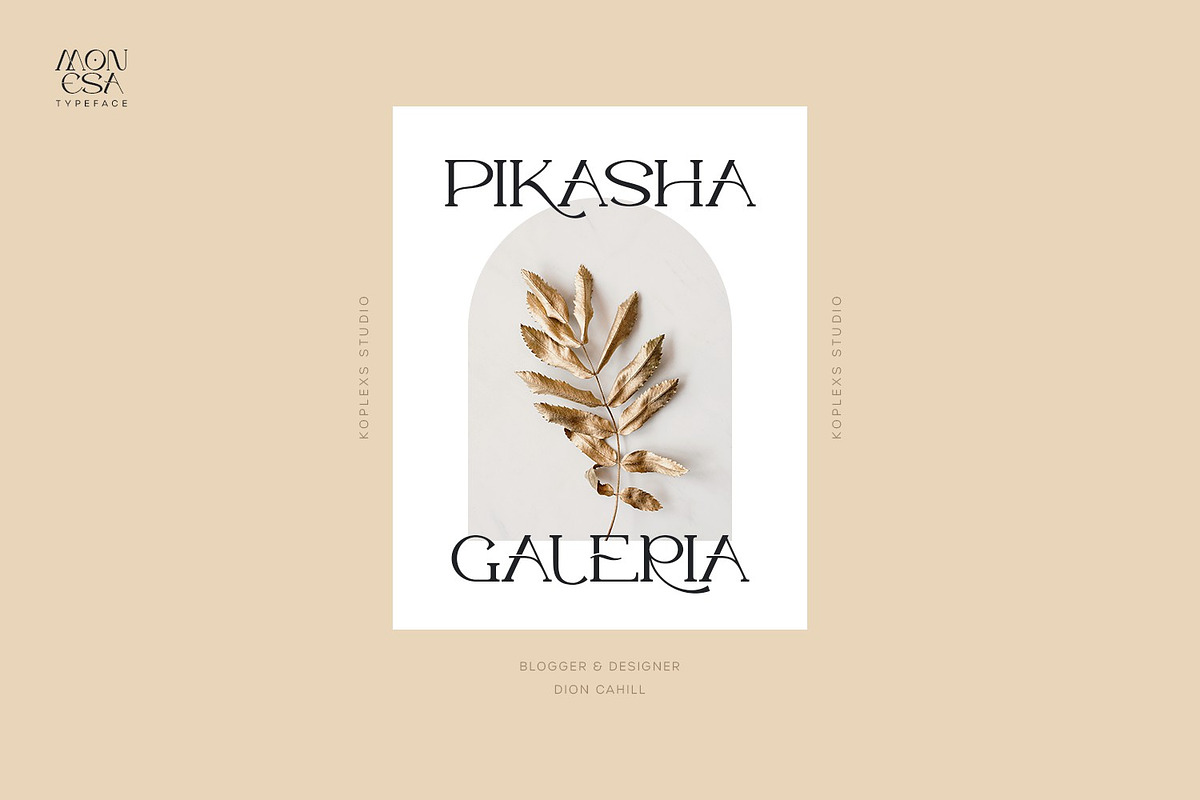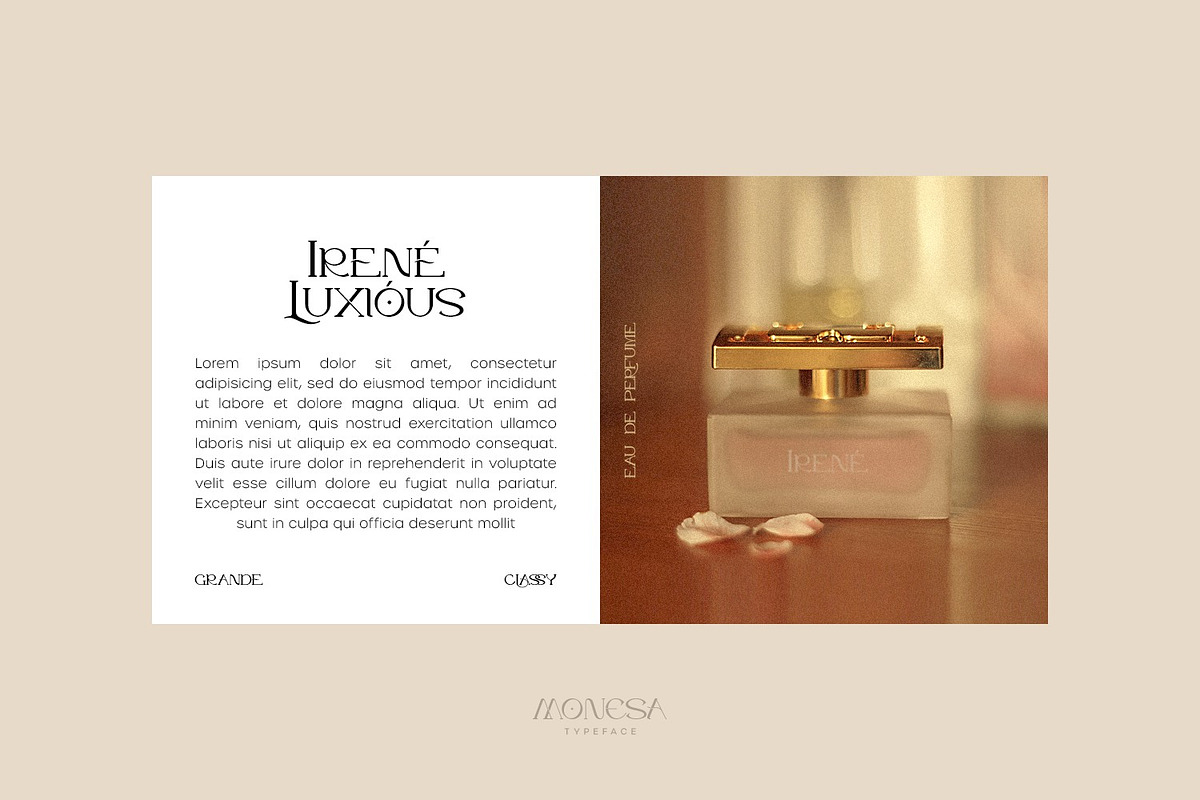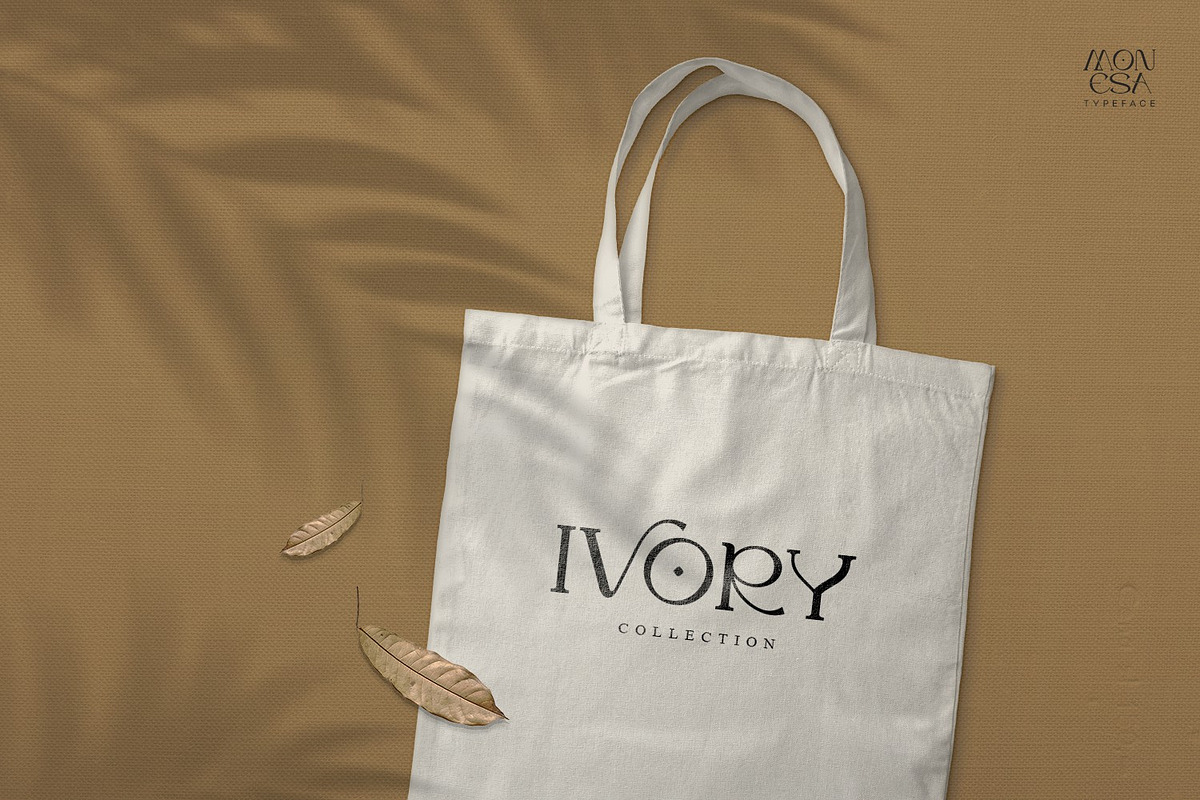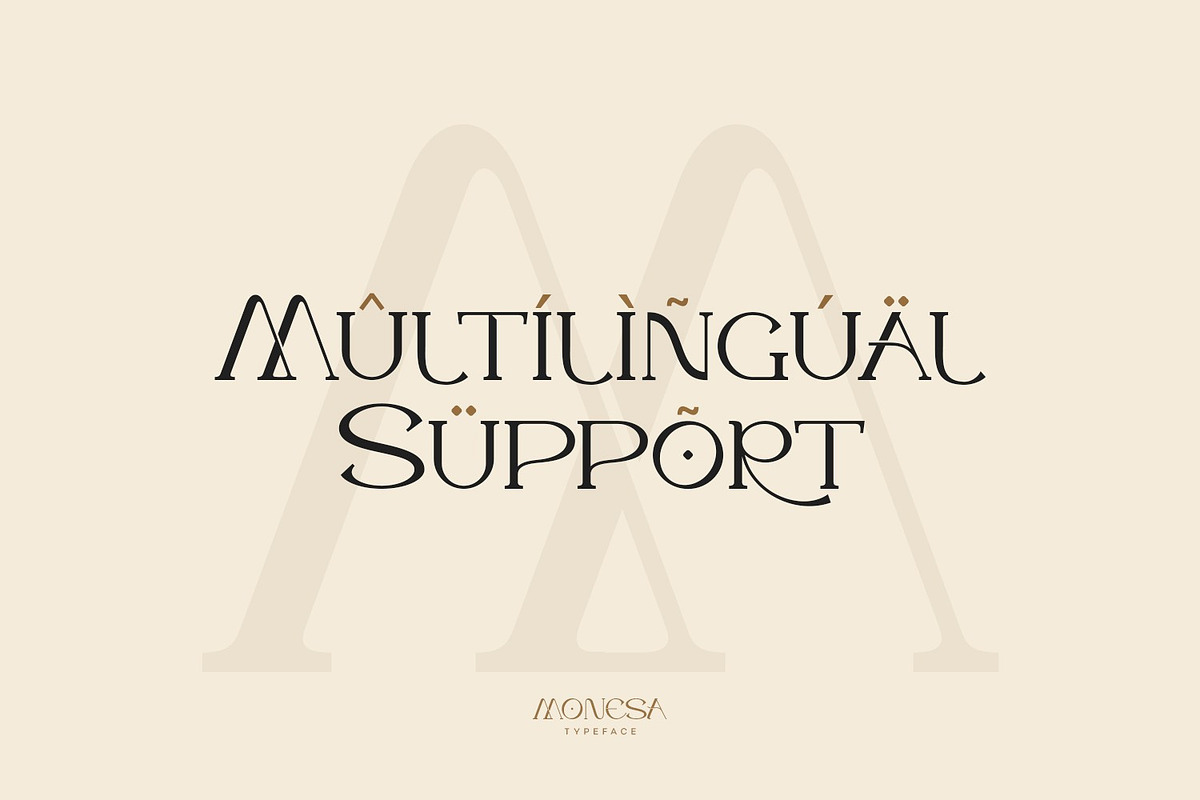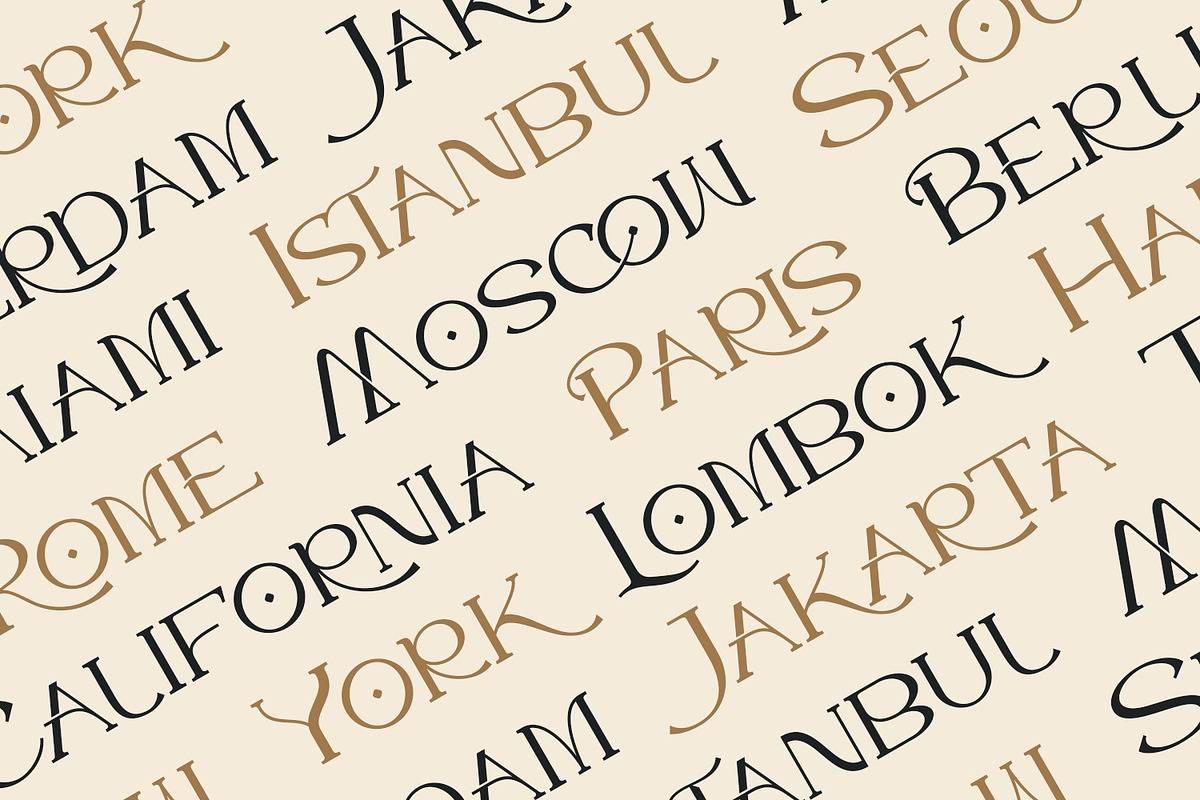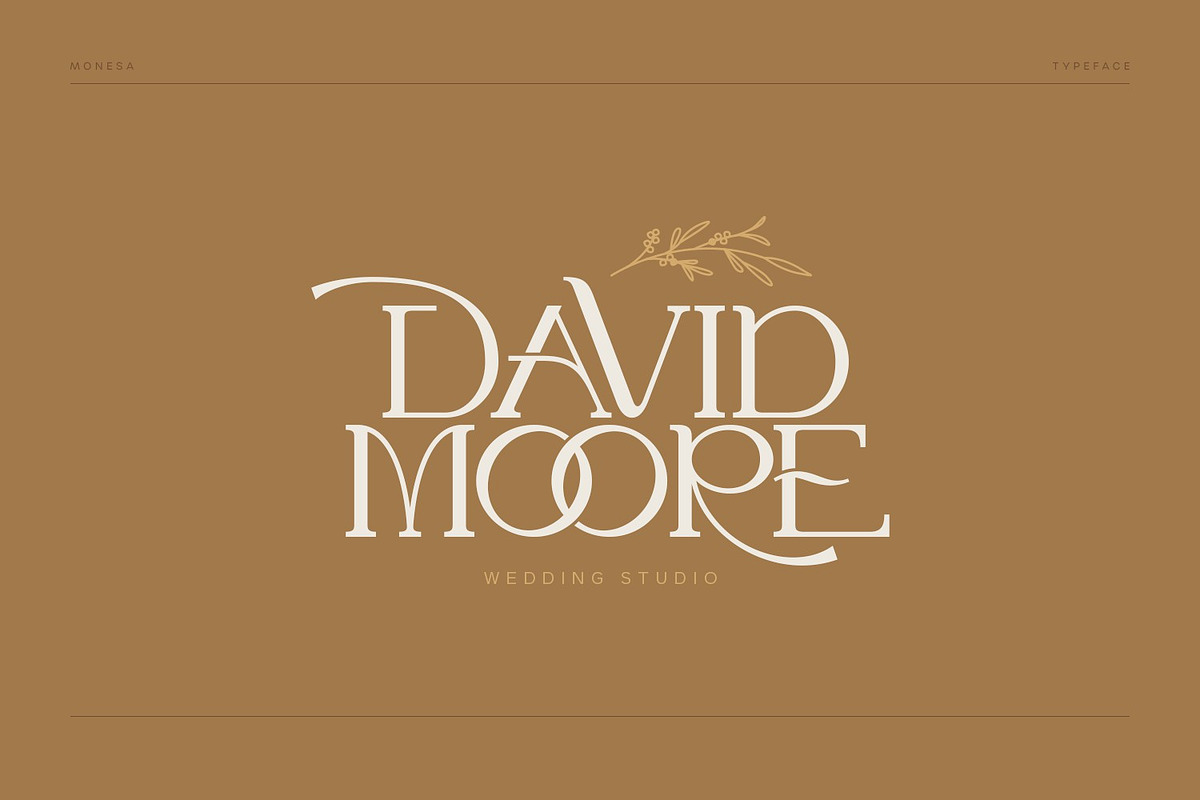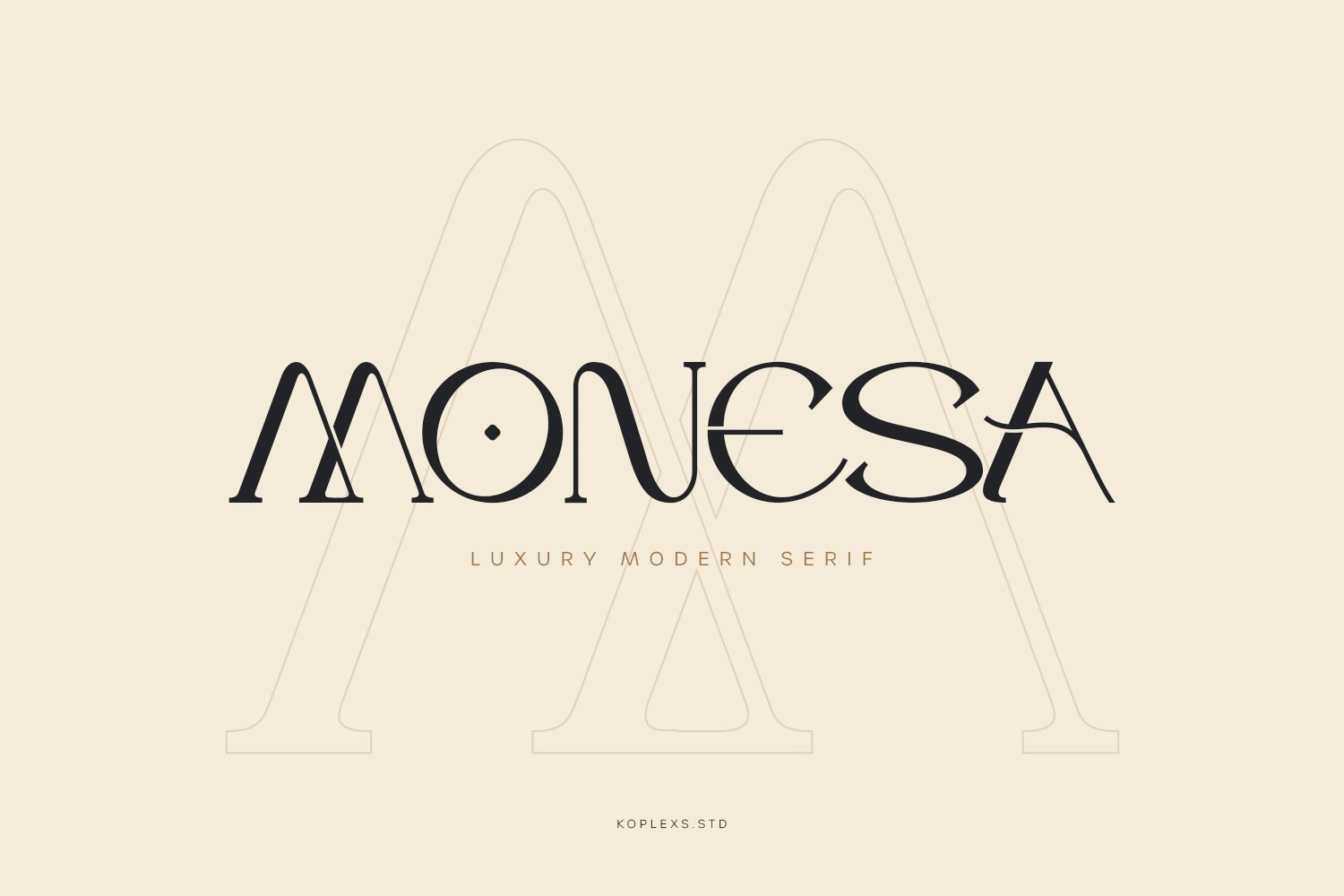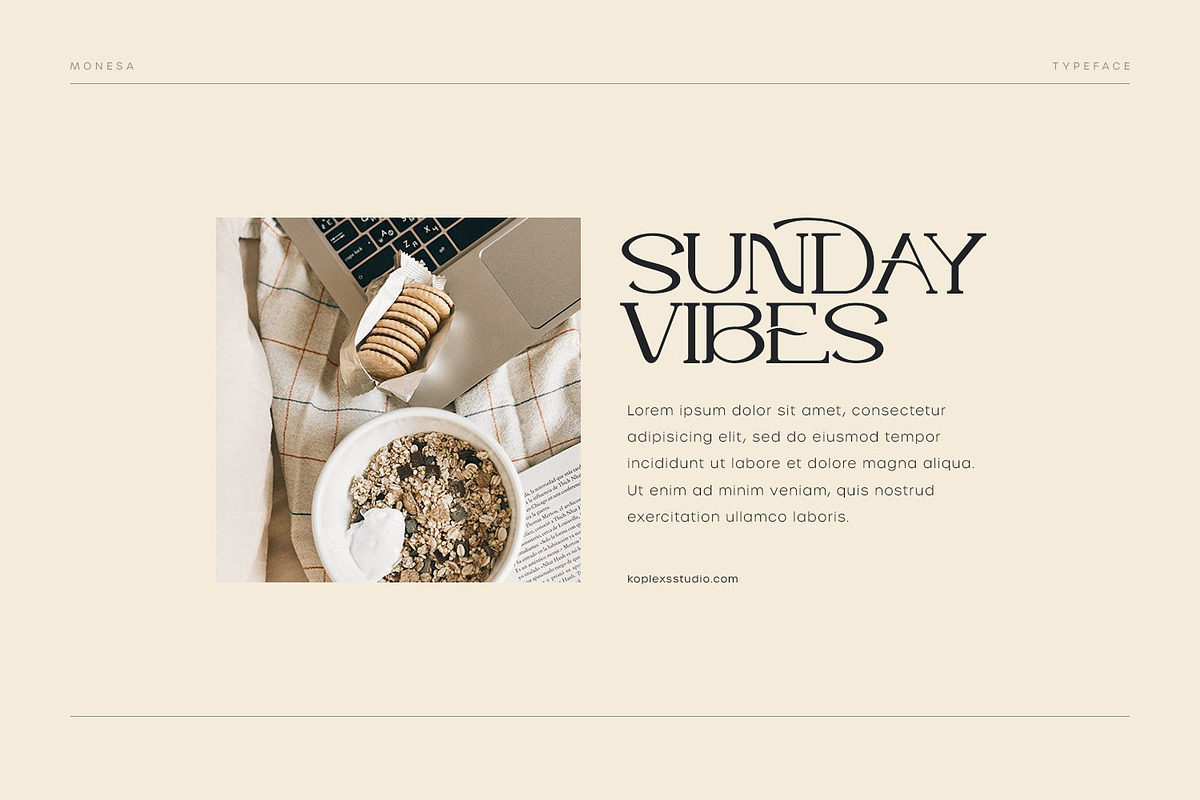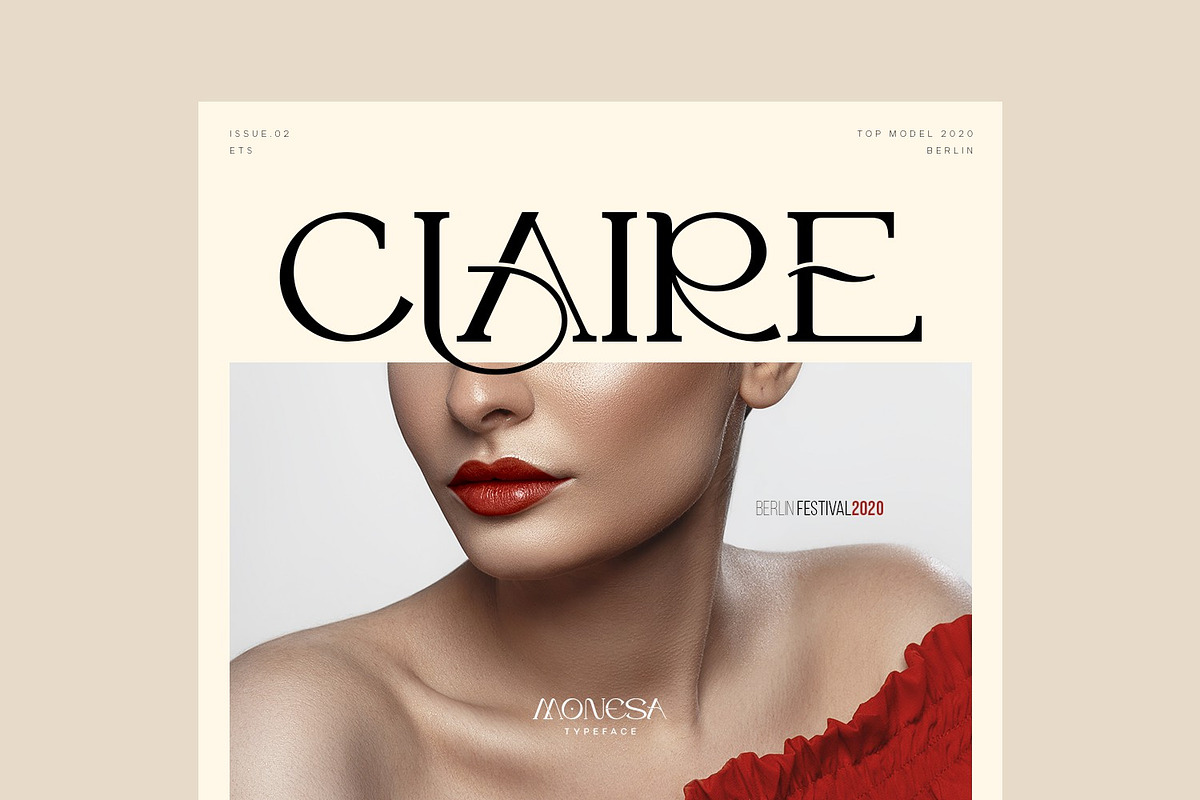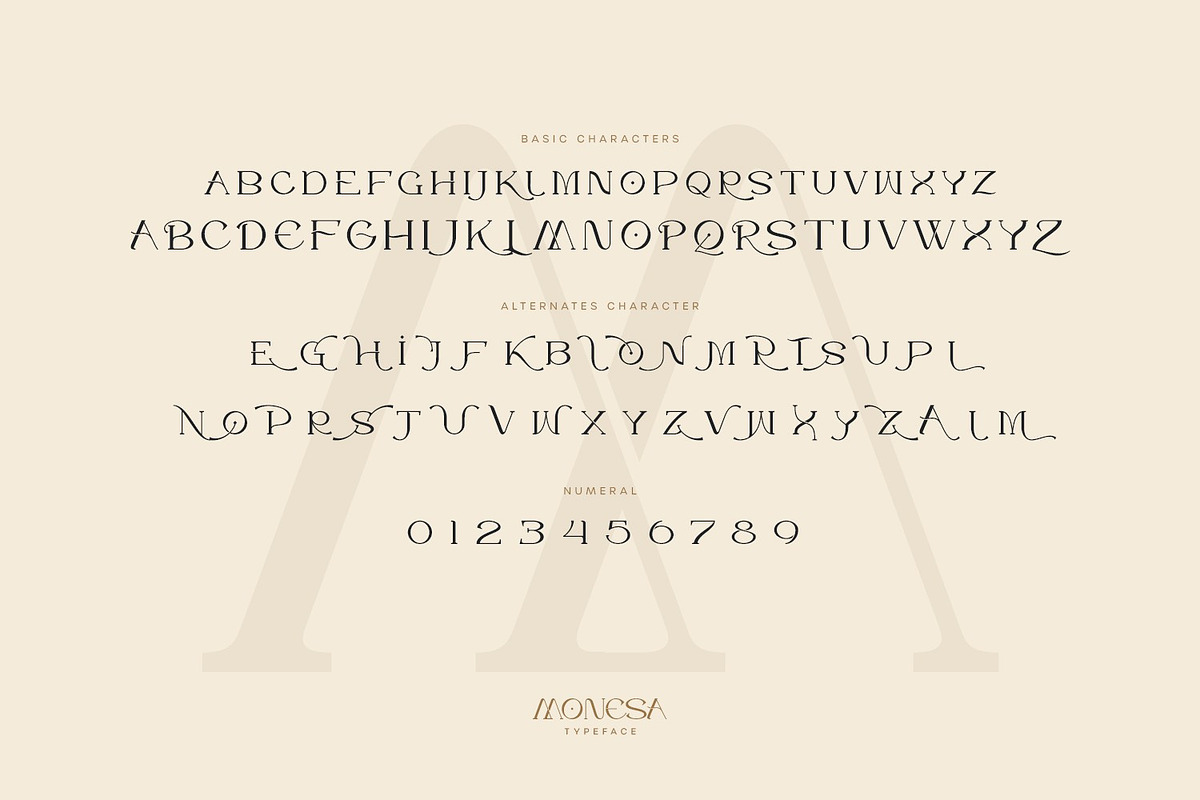
Monesa - Luxury Modern Serif Font
Monesa - A new Serif font that we created special for project needs, with extra unique shape and ligatures that will add your brand value. It so nice to leverage designer or product owner that need solutions to make their design look more classy and modern. And specially for Monesa font, We prepared any alternate characters to help you create unlimited variations for your creative needs specially for logotype or wordmark.
Monesa - Luxury Modern Serif Font a very versatile font, covering a wide range project types, from branding projects, Logo design, Clothing Branding, product packaging, magazine headers, to wedding invitations, to branding, poster design and so much more.
Ligatures Features
PUA Encoded Characters
Support for 63 languages